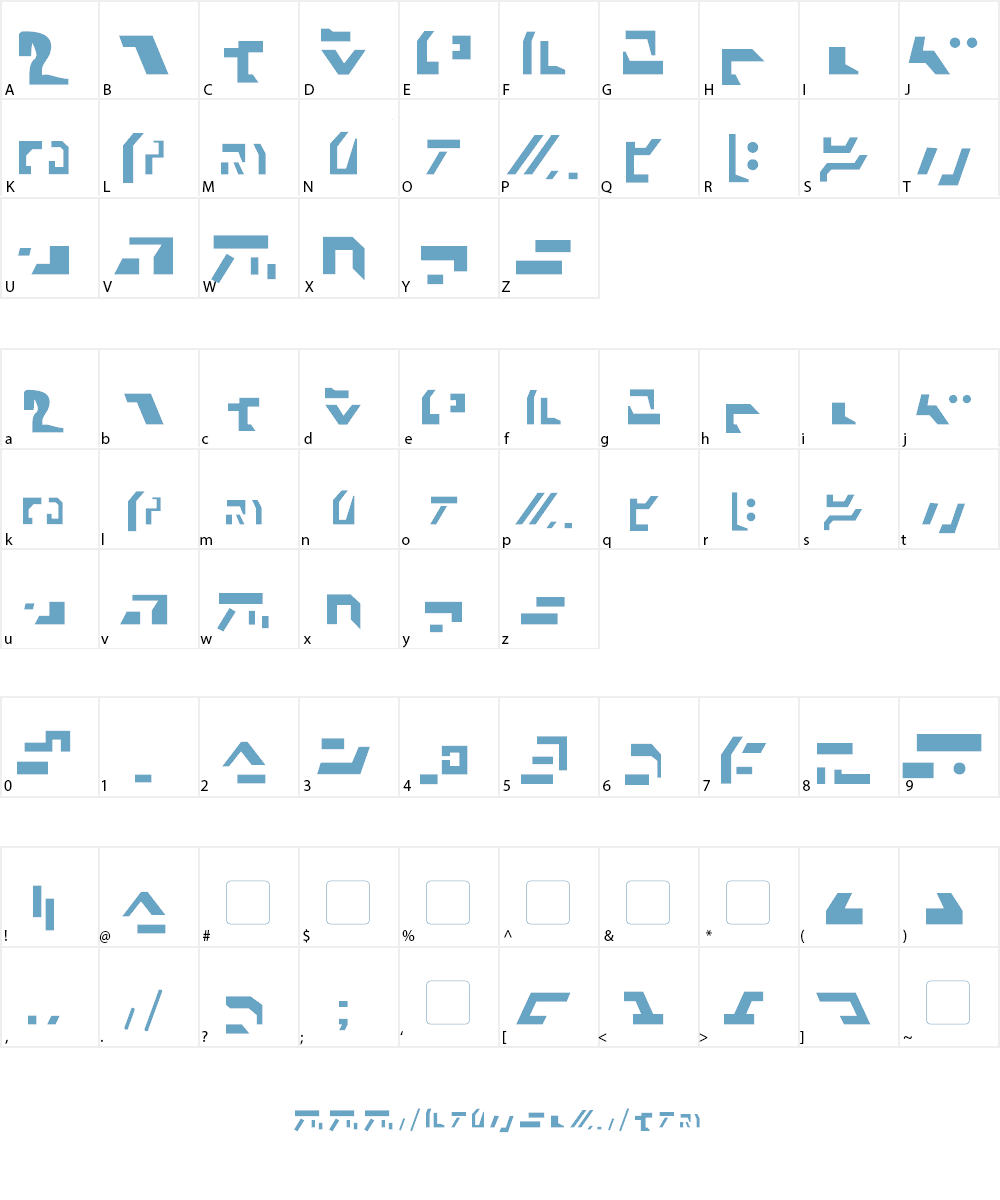
Giedi Ancient Autobot is an updated of Jim Sorenson’s Ancient Autobot Disk font (with permission). The face is based on the carvings in ancient Autobot ruins found in the classic Transformers “Cosmic Rust” episode. Includes all known canonical symbols, along with Autobot and Decepticon symbols replacing the left and right brackets, respectively.